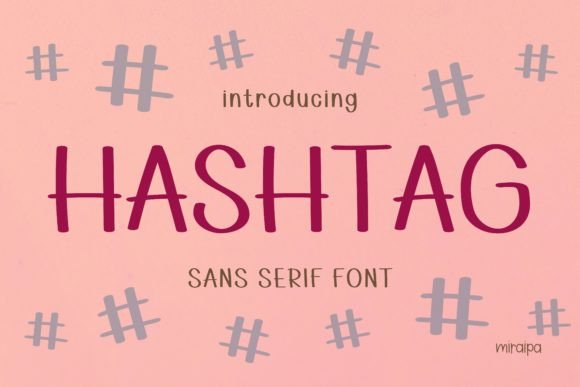
Welcome to the world of Hashtag Font, a sans serif font family designed by miraipa to infuse your designs with a touch of friendly charm. This enchanting font will bring life to your creative projects, whether you're a planner enthusiast, preparing for the new school year, or crafting unique invitations for special occasions. It's the perfect font to add a personal touch to your Halloween or Christmas decorations, posters, blog posts, clothing designs, greeting cards, social media posts, and more.
Embrace the versatility of Hashtag Font and let your imagination run wild. Its friendly and welcoming style is perfect for adding warmth to child-related designs, creating eye-catching posters that grab attention, or designing invitations that exude a sense of celebration. Hashtag Font is the secret ingredient to making your designs pop.
This user-friendly font is perfect for adding a personalized touch to your projects. Whether you're a seasoned designer or just starting out, Hashtag Font makes it easy to create designs that capture the essence of your brand or personal style. Say goodbye to boring, generic fonts and embrace the creative possibilities that Hashtag Font offers.